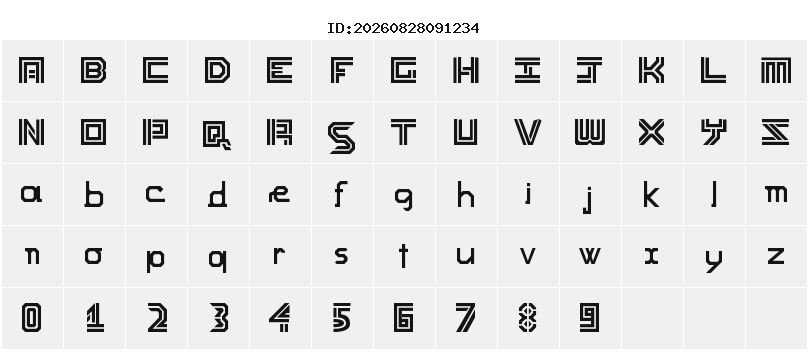
Trackmania Preview
• Font Name: Trackmania
• Full Font Name: Trackmania
• Version: Version 1.00 July 9, 2005, initial release
• Designer: By NEOCry
About Trackmania.ttf
Trackmania.ttf is a modern, elegant sans-serif font designed for ultimate readability and visual harmony. Perfect for branding, headlines, web design, and print materials.